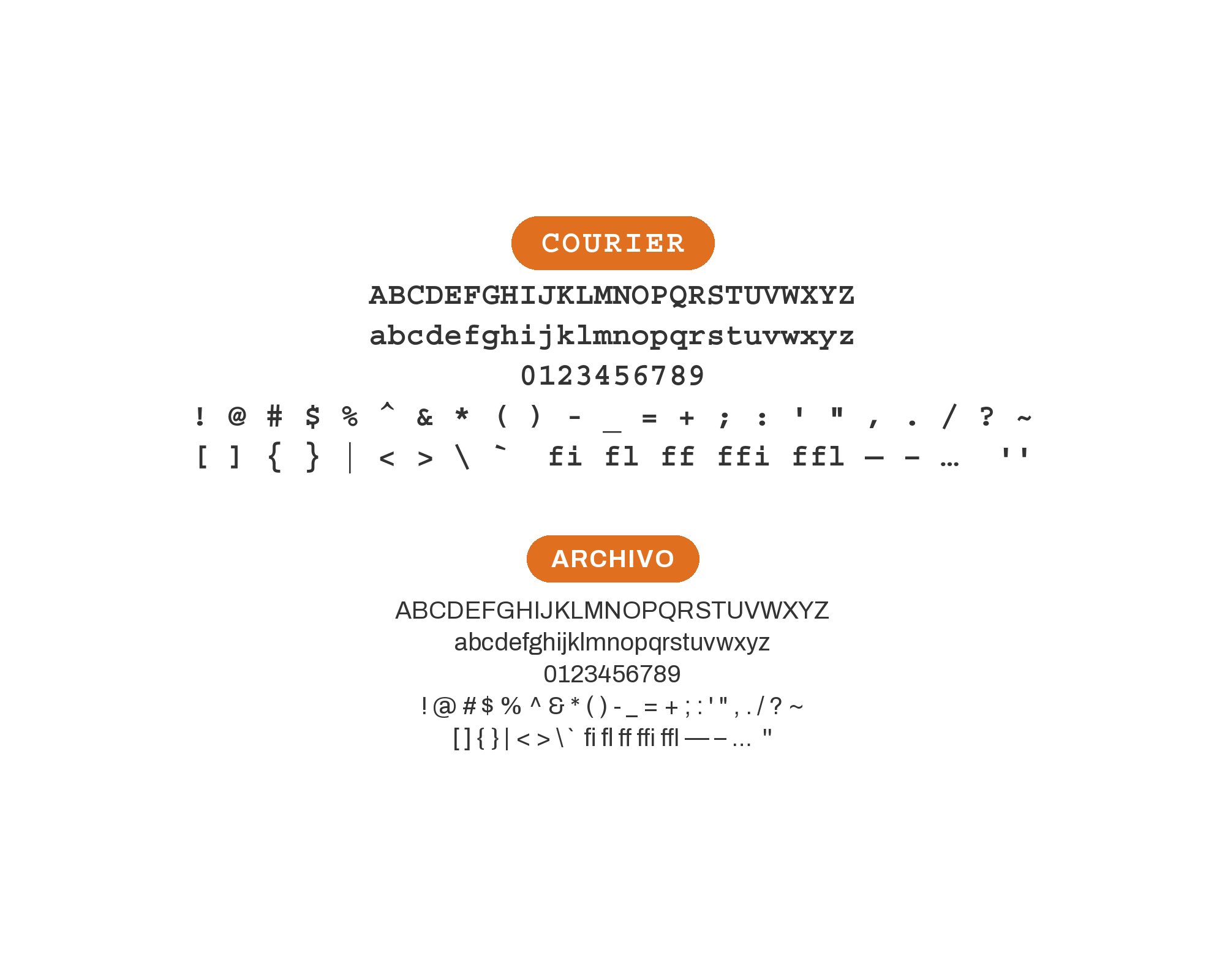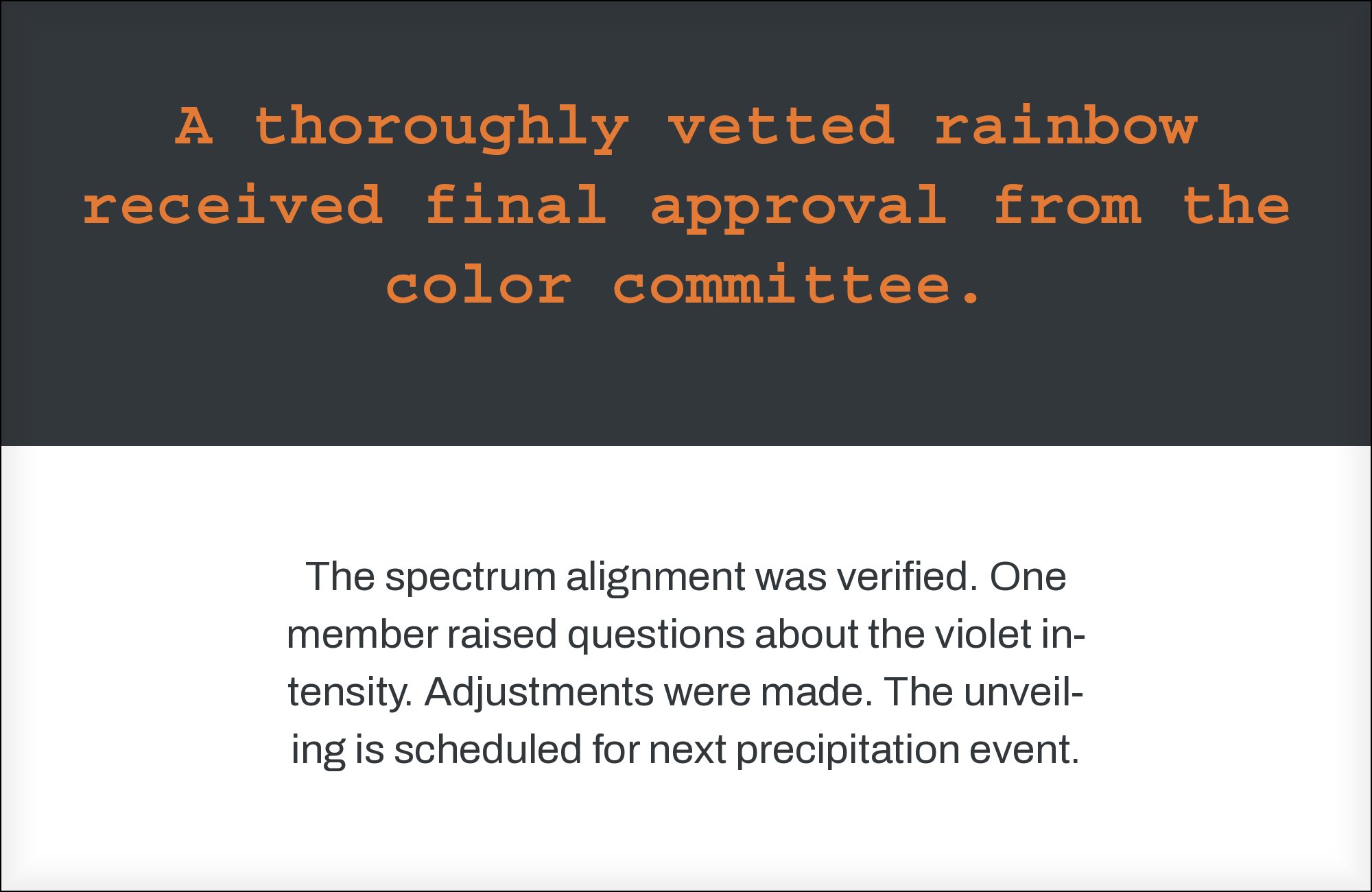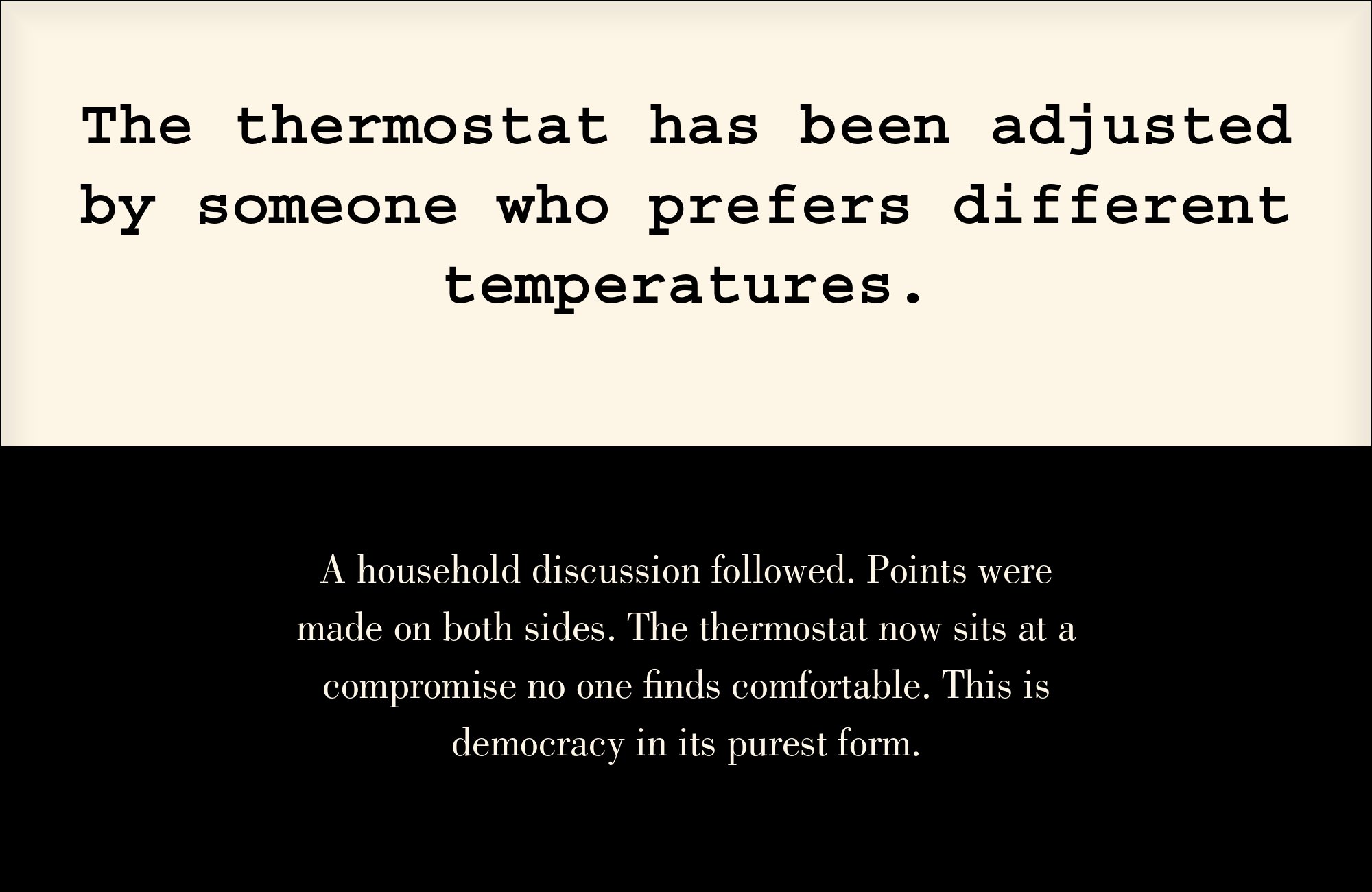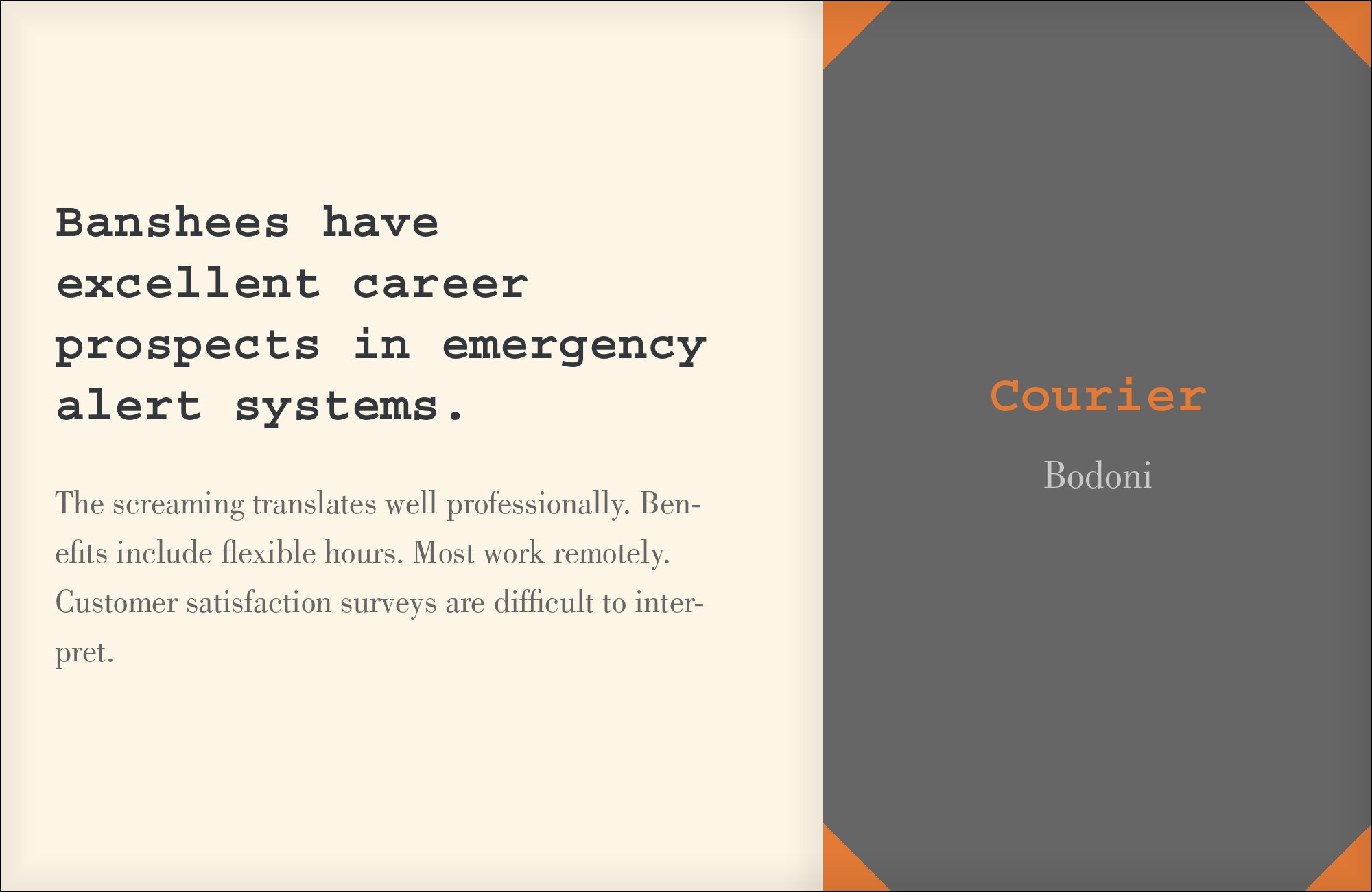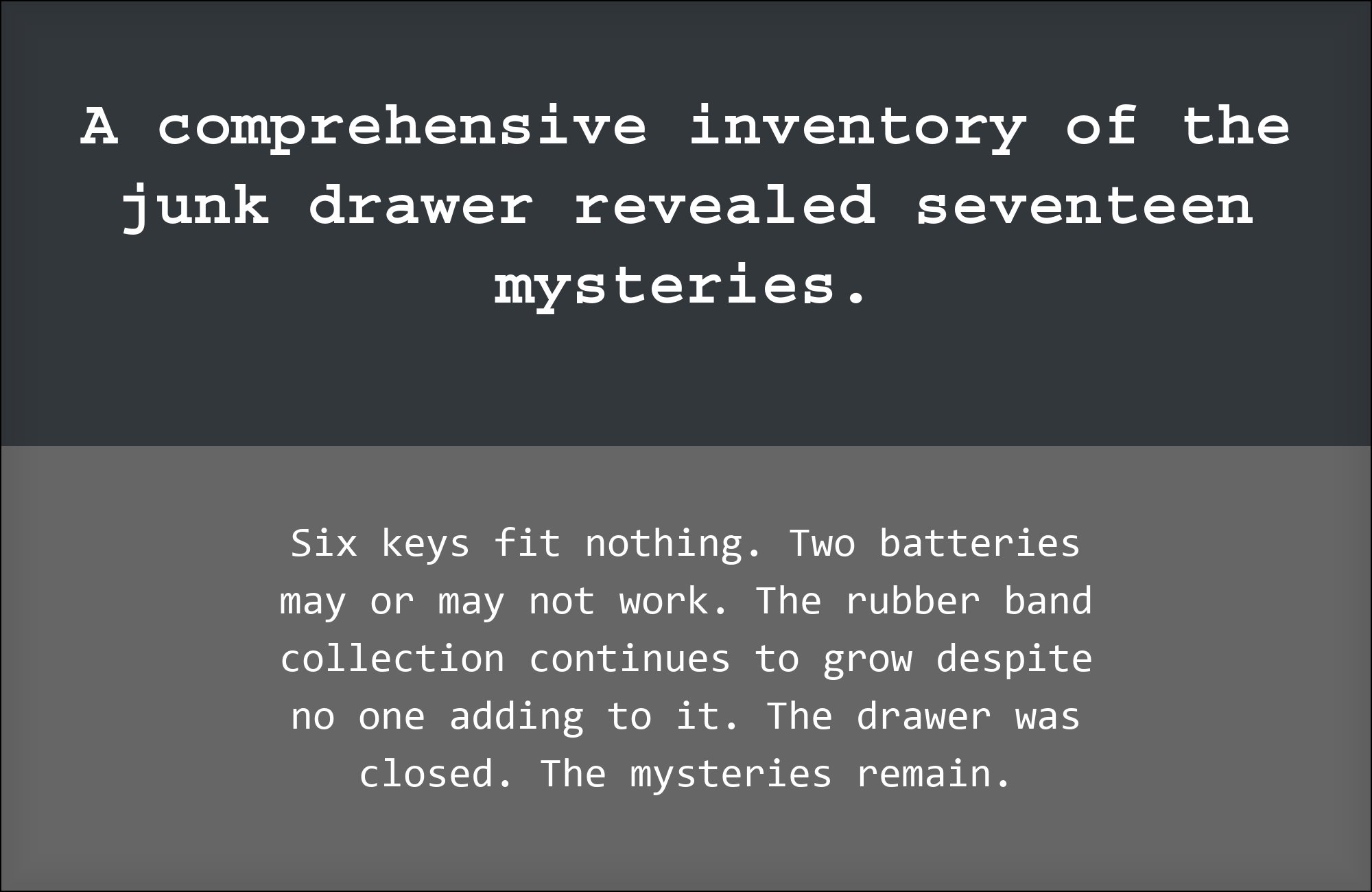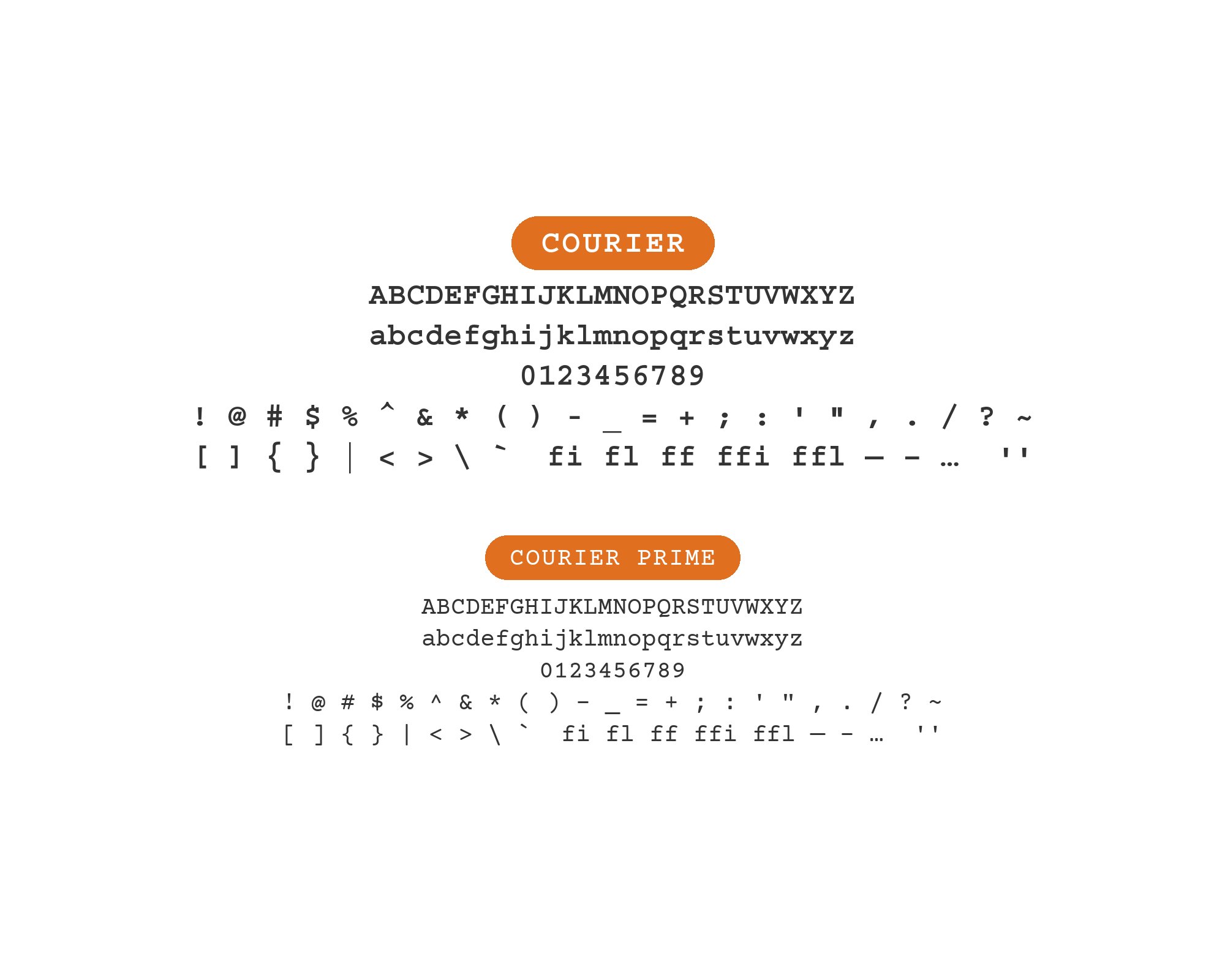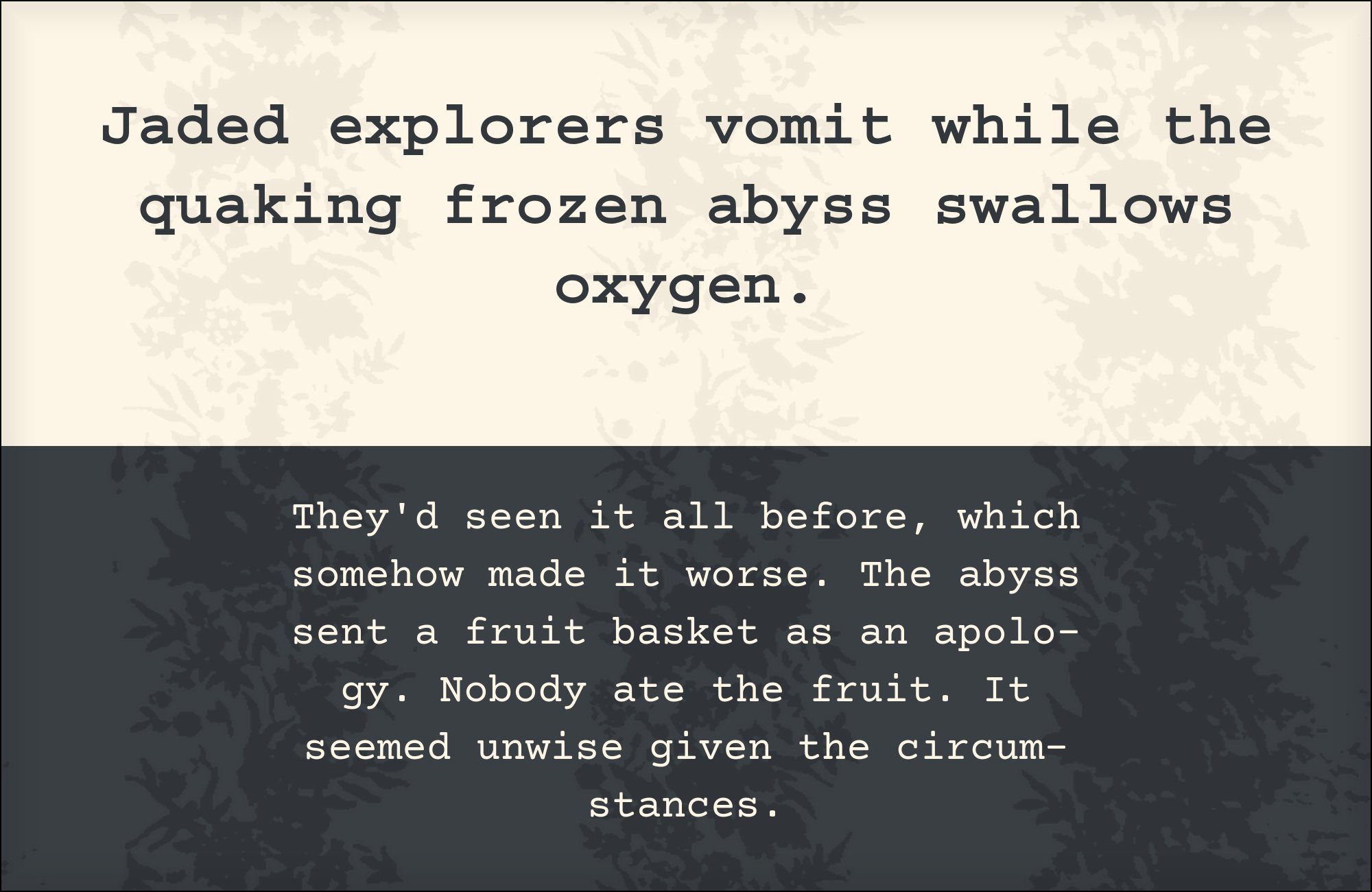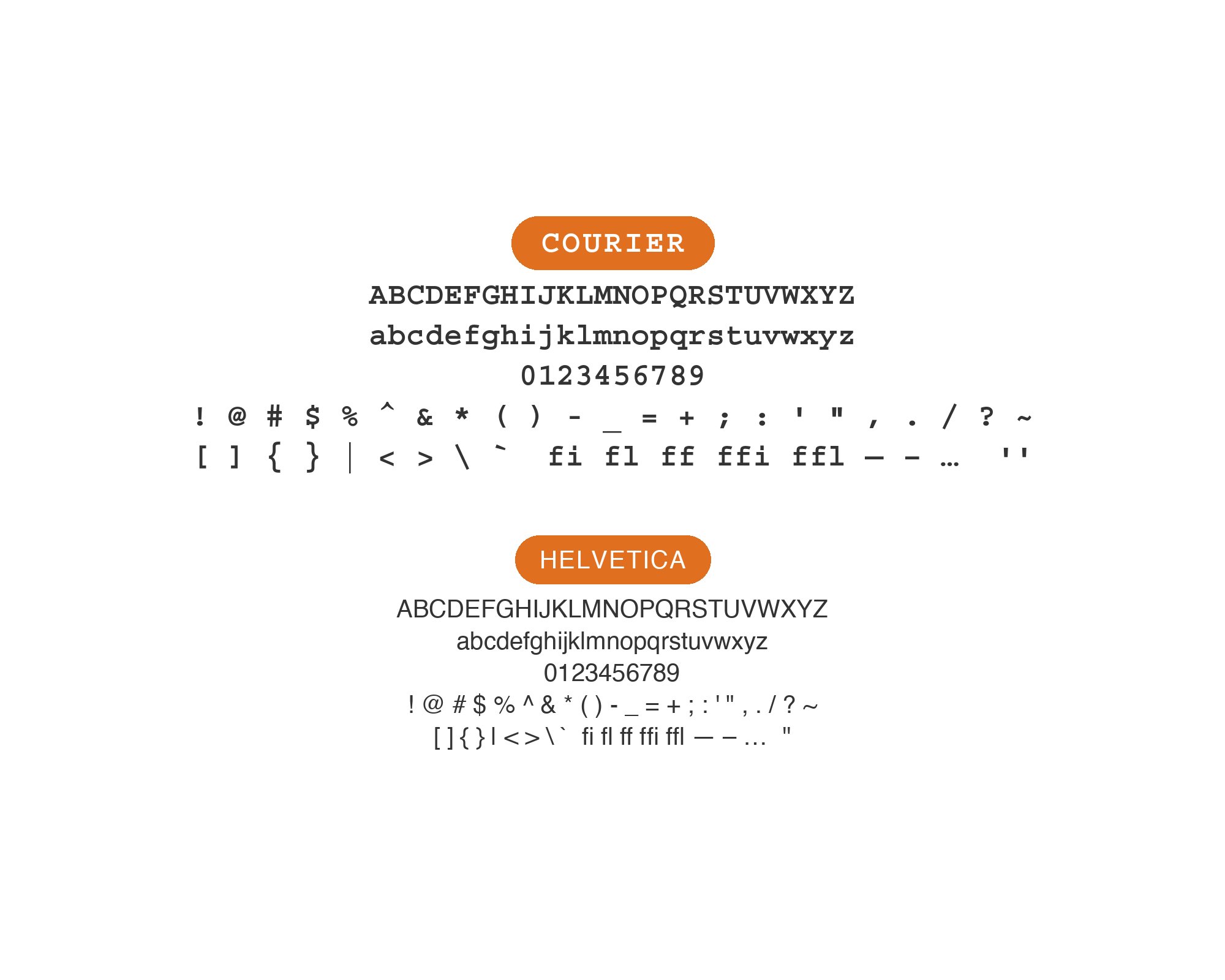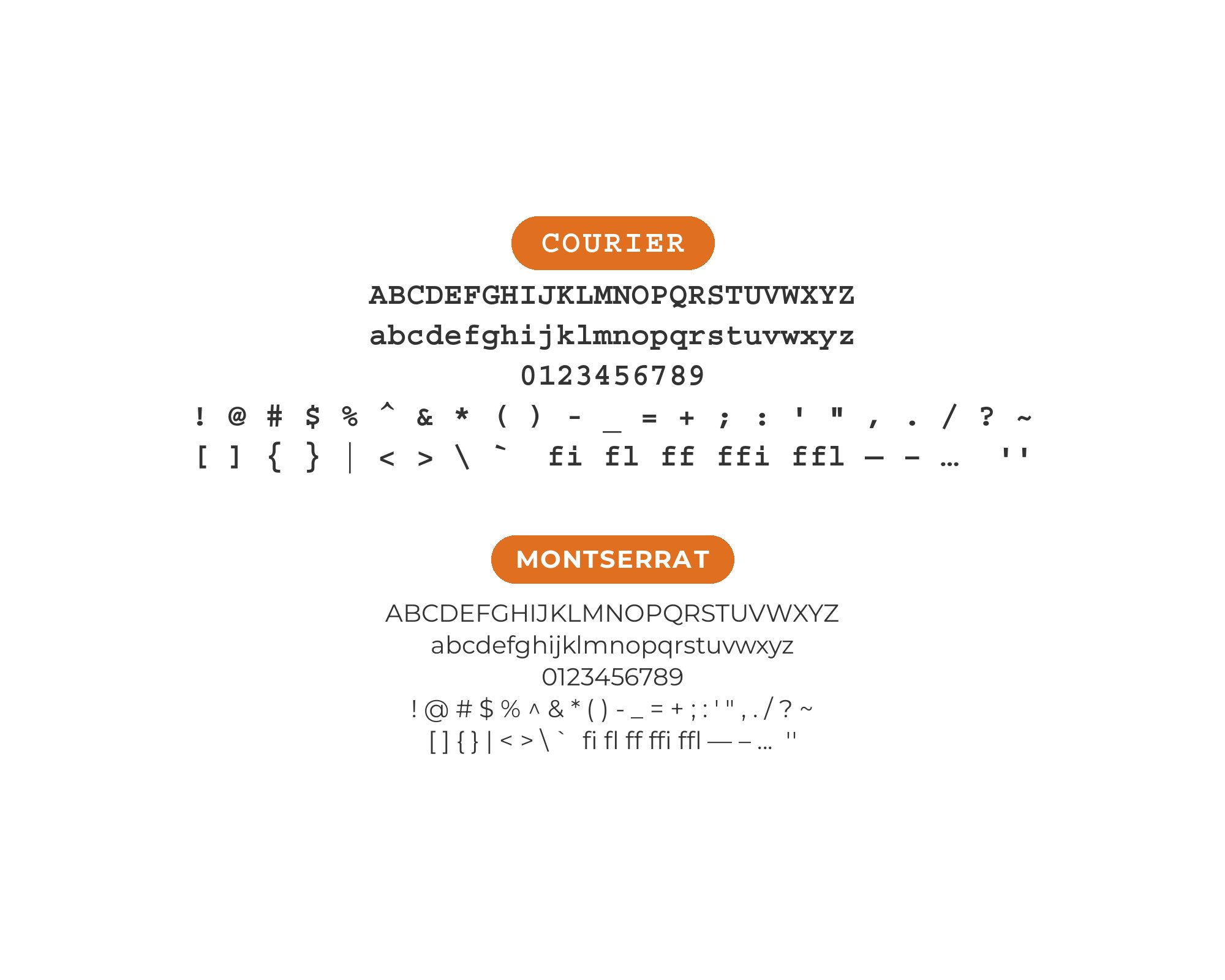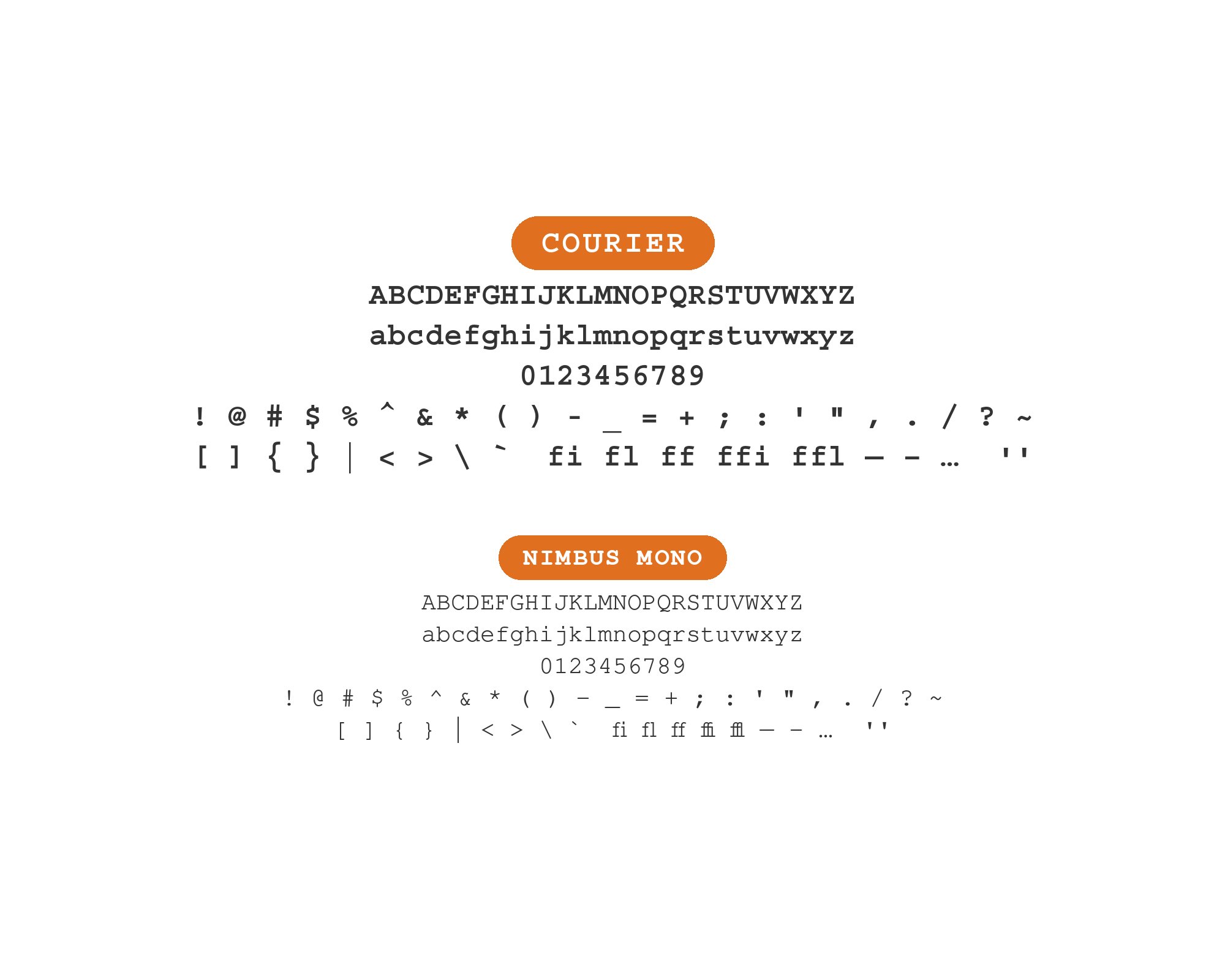
What Fonts Go With Courier?
Courier pairs great with Helvetica, Times New Roman and Mulish. All 12 pairings are shown below in real rendered specimens, with the reason each one works.
Courier type specimen
What fonts go with Courier? The pairings below show a range of useful roles.
Courier is a working typeface, not a novelty. Each pairing gives it a clear job in the design.
1. Helvetica
Courier and Helvetica font pairing: Courier headline with Helvetica body text
A neutral grotesque absorbs Courier’s mechanical typewriter rhythm without competing with it. Typewolf lists Stink Studios using Helvetica, Times New Roman and Courier together.
Character specimen: Courier (heading) and Helvetica (body) letters, numbers and symbols side by side
2. Times New Roman
Courier and Times New Roman font pairing: Courier headline with Times New Roman body text
Courier New and Times New Roman have both shipped with Windows since Windows 3.1, and they share a plain document register, so swapping between them for headers and body reads as one coherent, unpretentious system rather than a clash.
Character specimen: Courier (heading) and Times New Roman (body) letters, numbers and symbols side by side
3. Mulish
Courier and Mulish font pairing: Courier headline with Mulish body text
Mulish’s minimal, low-contrast letterforms and slightly rounded terminals give body copy a quiet, contemporary sans voice next to Courier’s rigid, mechanical monospace grid. In a Crystal API docs design proposal, Muli was included in the body font stack while Courier remained in the code stack. Muli was later renamed Mulish.
Character specimen: Courier (heading) and Mulish (body) letters, numbers and symbols side by side
4. Georgia
Courier and Georgia font pairing: Courier headline with Georgia body text
A screen-tuned serif with a large x-height carries long-form body copy while Courier is reserved for code snippets, labels, or a typewriter-styled accent — the roles never overlap.
Character specimen: Courier (heading) and Georgia (body) letters, numbers and symbols side by side
5. Futura
Courier and Futura font pairing: Courier headline with Futura body text
Futura’s geometric circles and triangles are the visual opposite of Courier’s mechanical slab serifs. The contrast keeps each face distinct within the same composition.
Character specimen: Courier (heading) and Futura (body) letters, numbers and symbols side by side
6. Montserrat
Courier and Montserrat font pairing: Courier headline with Montserrat body text
A clean geometric sans for interface text lets Courier sit apart as a deliberate typewriter or code-style accent without fighting for the same visual space.
Character specimen: Courier (heading) and Montserrat (body) letters, numbers and symbols side by side
7. Consolas
Courier and Consolas font pairing: Courier headline with Consolas body text
Microsoft’s own screen-optimized monospace is the natural modern counterpart when Courier is used as a retro or legacy accent. Typ.io records clockworksms.com using Courier, Chivo and Consolas together.
Character specimen: Courier (heading) and Consolas (body) letters, numbers and symbols side by side
8. Archivo
Courier and Archivo font pairing: Courier headline with Archivo body text
Archivo is a plain, neutral grotesque with even weight distribution and moderate x-height, functional rather than expressive. It is a tidy sans for navigation and supporting text beside Courier’s mechanical monospace. MaxiBestOf records Archivo and Courier New together in one website design.
Character specimen: Courier (heading) and Archivo (body) letters, numbers and symbols side by side
9. Bodoni
Courier and Bodoni font pairing: Courier headline with Bodoni body text
Bodoni’s high-contrast Didone forms make a sharp counterpoint to Courier’s flat, mechanical texture. Each remains distinct in the same composition.
Character specimen: Courier (heading) and Bodoni (body) letters, numbers and symbols side by side